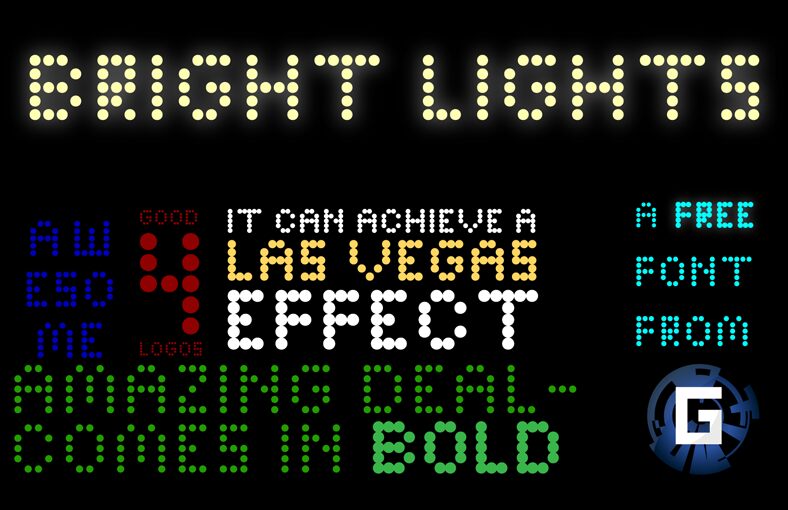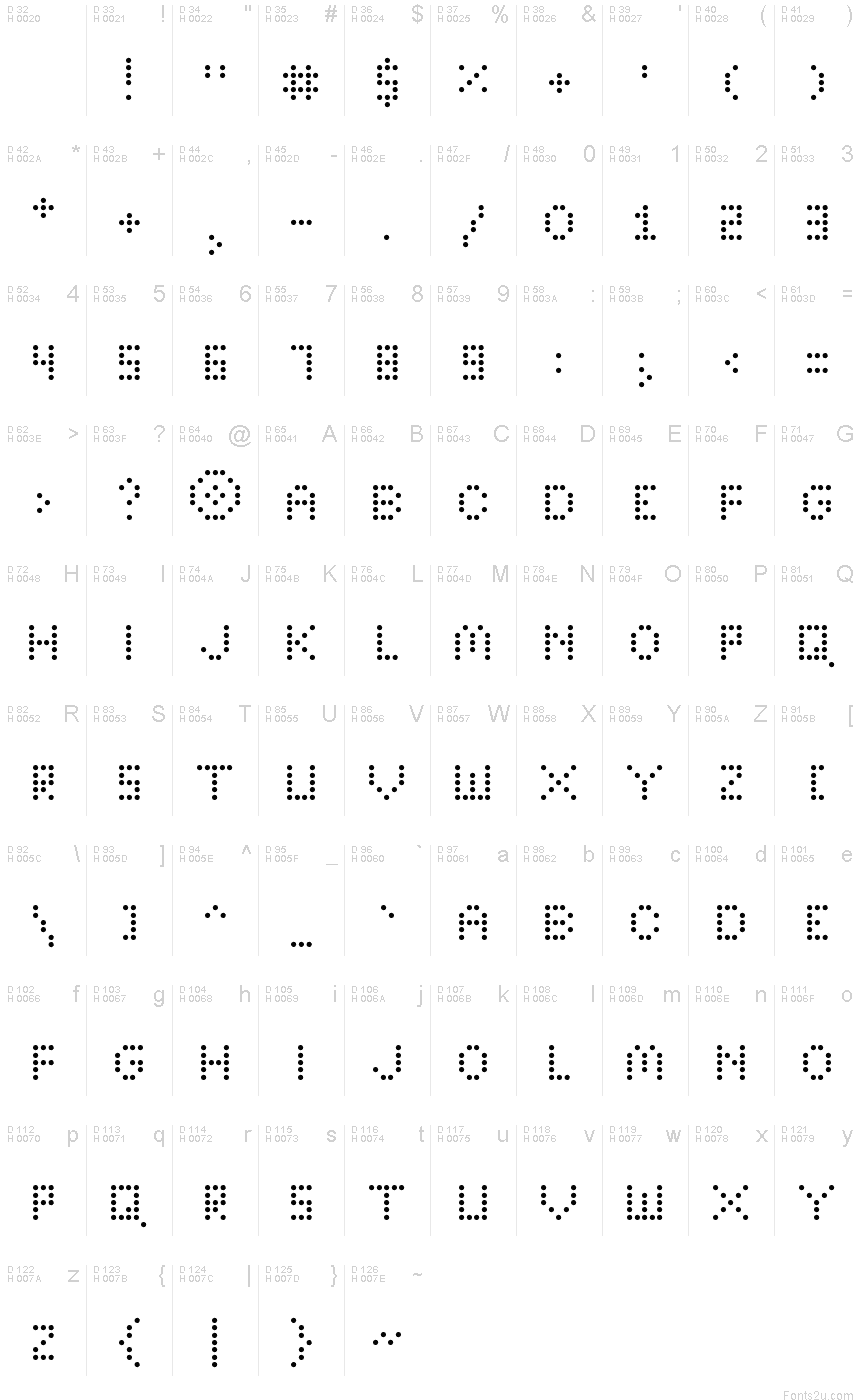
Bright Lights by supermattyb of FontStruct is a free dot-matrix digital display font with the clean punch of an illuminated marquee. Its round, widely separated dots create open letter shapes and an airy texture. The five-row forms feel crisp and immediately electronic.
As an electronic sign, the lettering can set the scene for concert posters, arcade graphics, and nightlife event material. Its bulb-like pattern can become part of a venue's or music label's branding, echoing the lights around it.
Bright Lights was created by Matt Bruinooge.
The font is available in Light, Medium, and Bold.